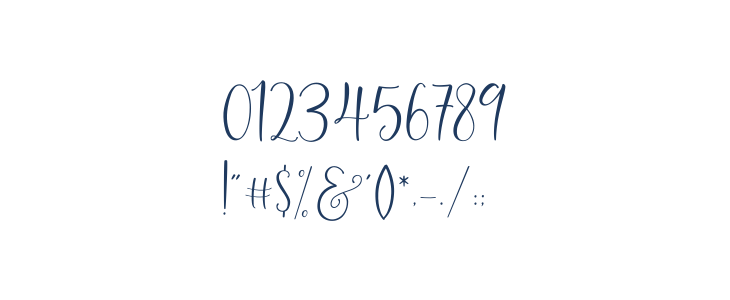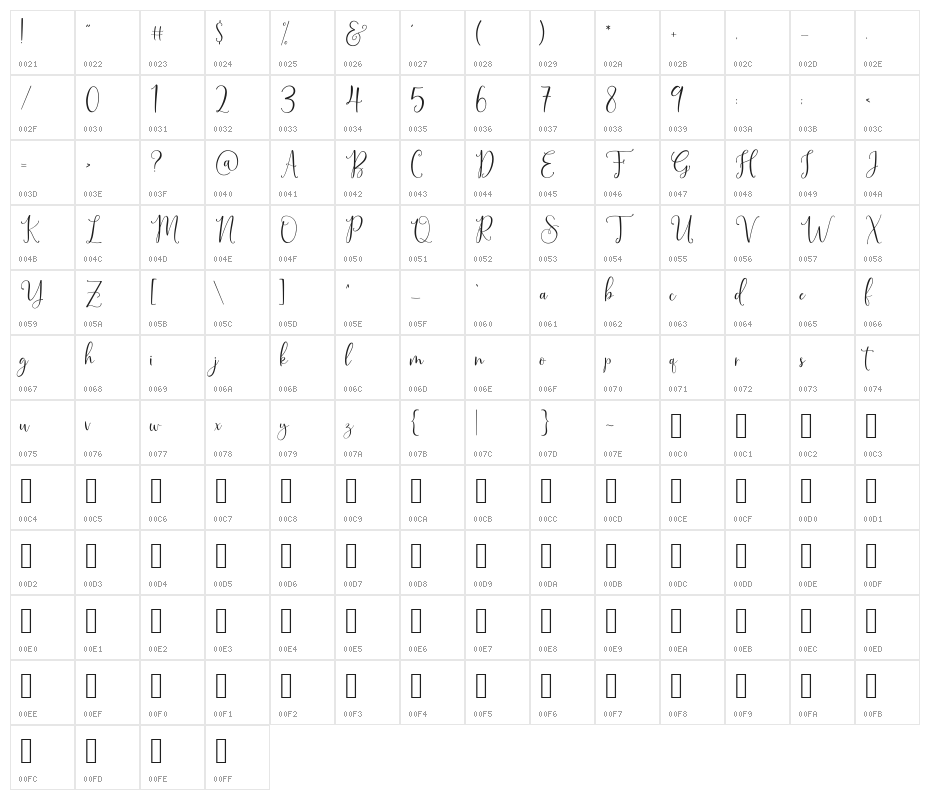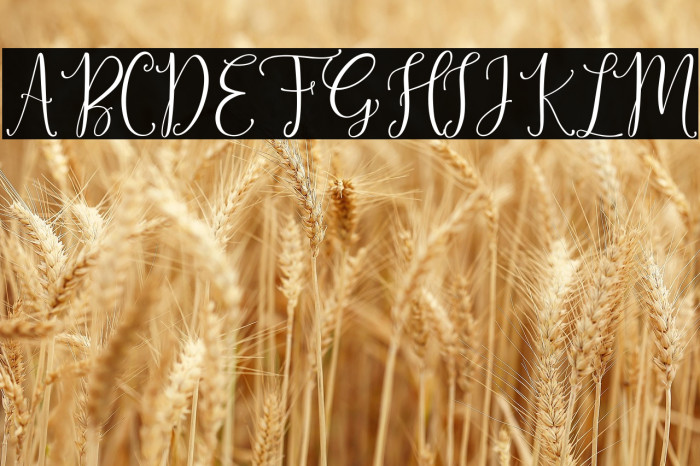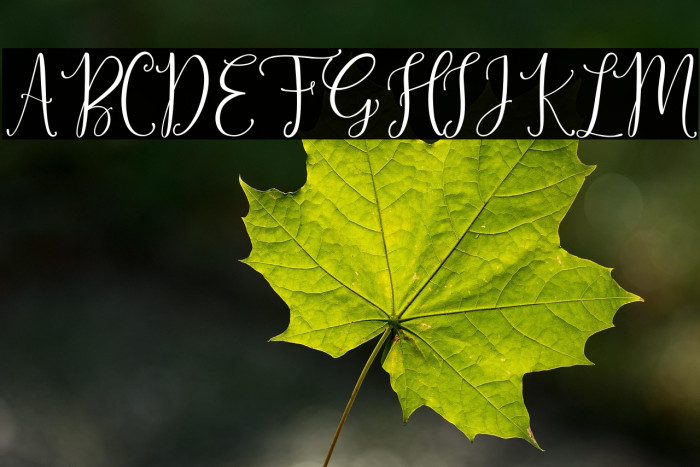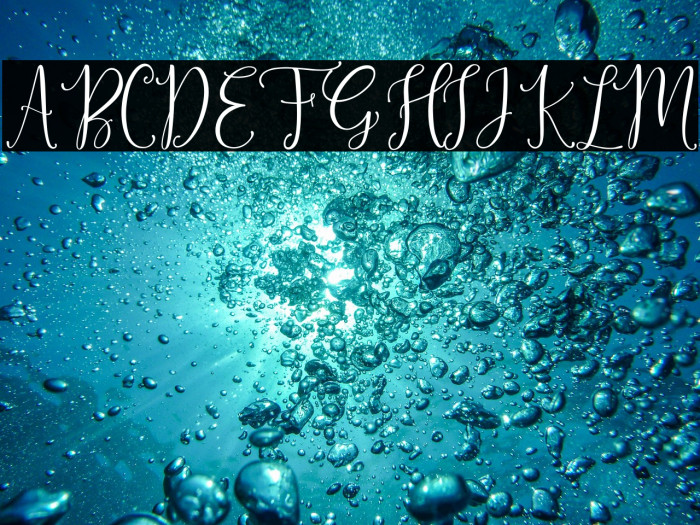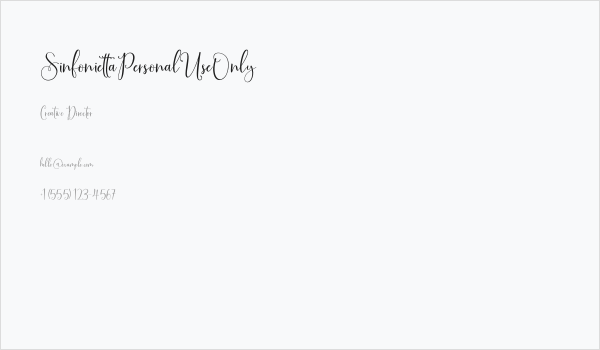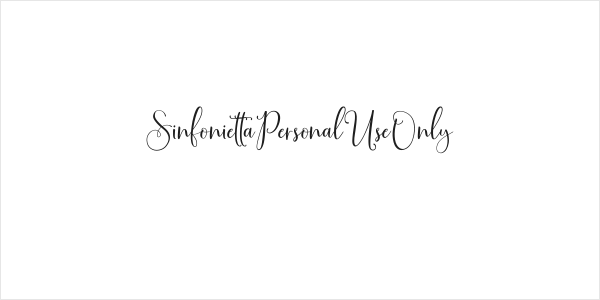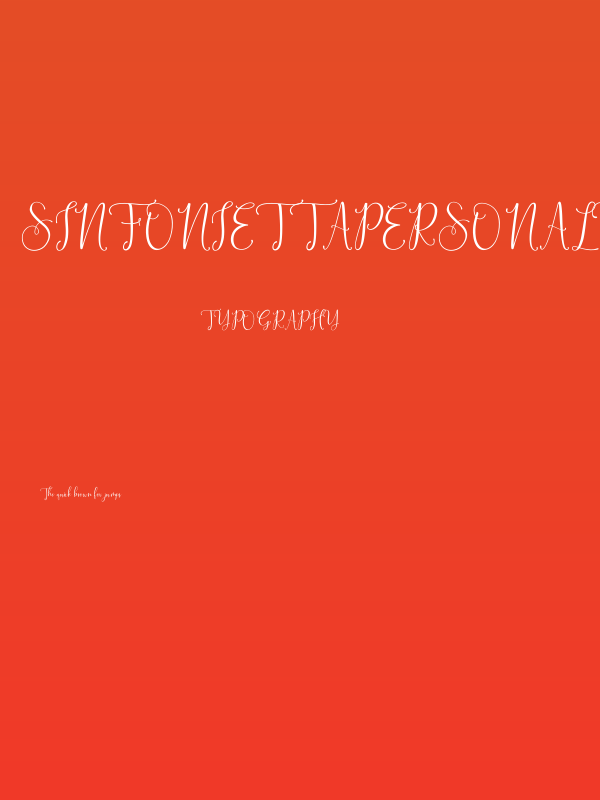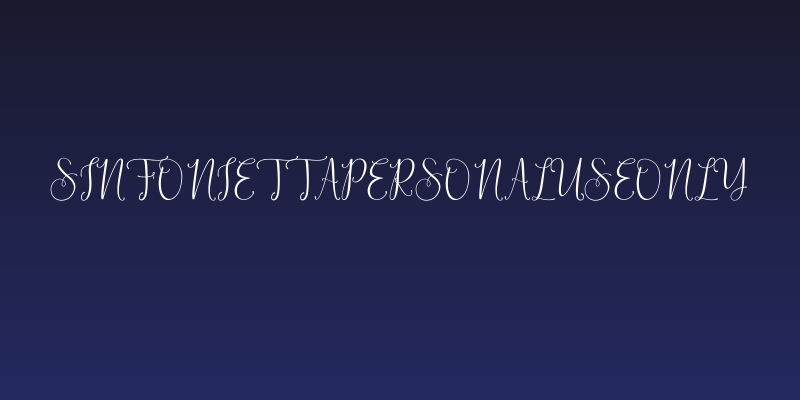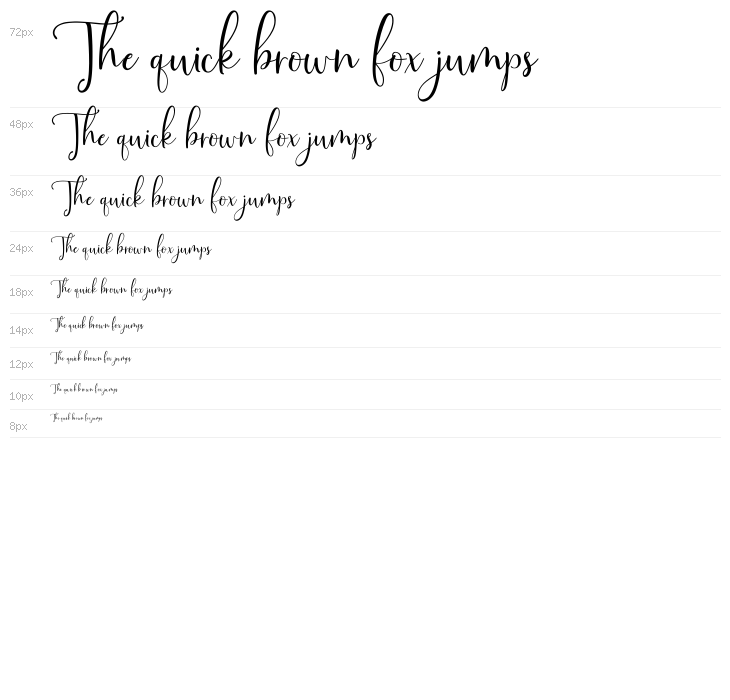
SinfoniettaPersonalUseOnly Font
SinfoniettaPersonalUseOnly Description
This font features an elegant and flowing script style, characterized by its graceful curves and loops. The uppercase letters are tall and slender, with a sophisticated flair that adds a touch of elegance to any text. The lowercase letters maintain a consistent style, with smooth connections between characters that enhance readability while preserving the decorative nature of the script. Numbers are designed with a similar aesthetic, ensuring a cohesive look across all elements. Special characters are included, each crafted with the same attention to detail, making this font versatile for various design needs.